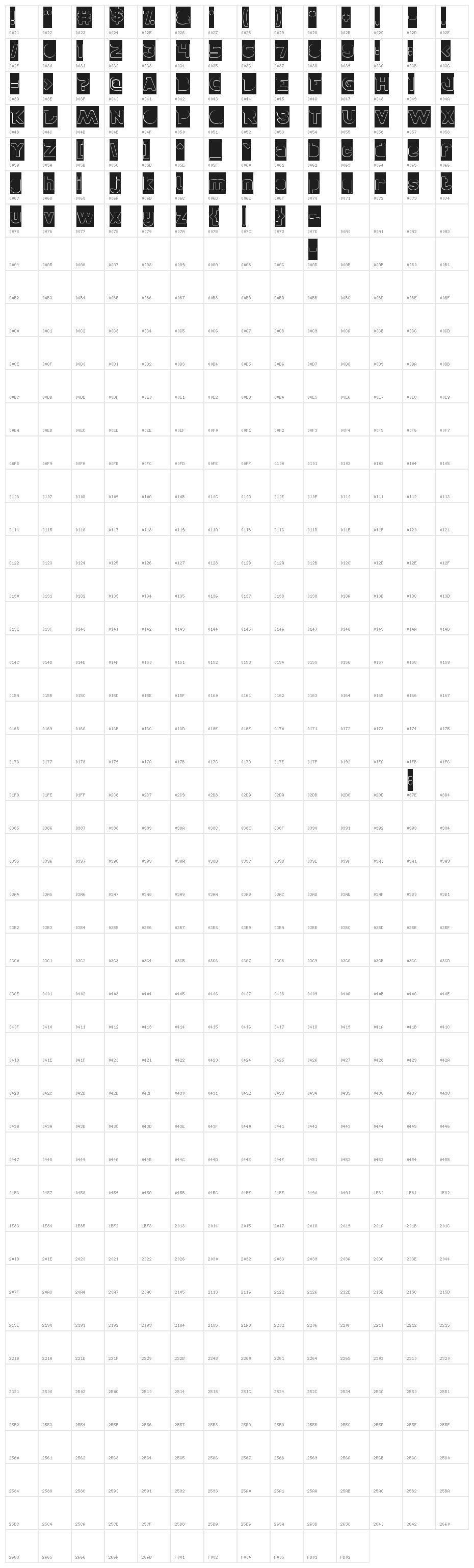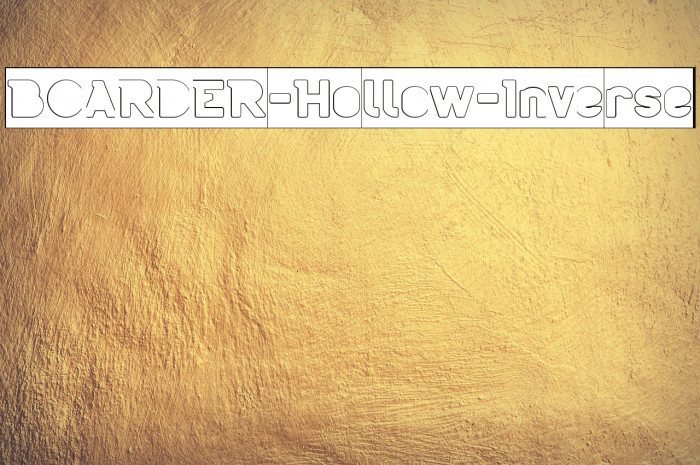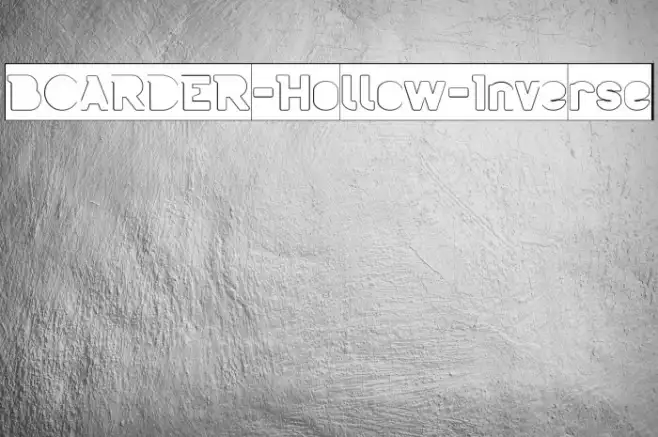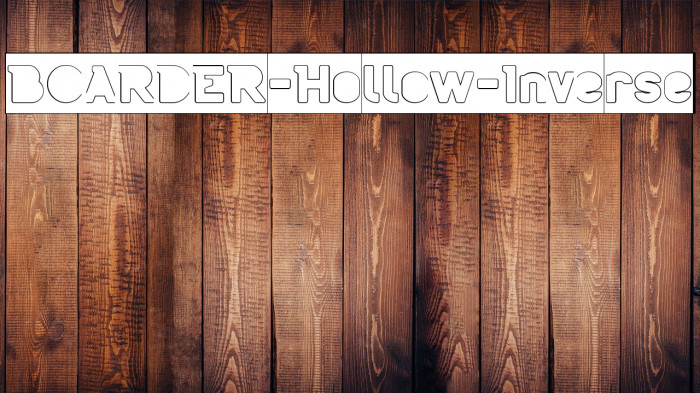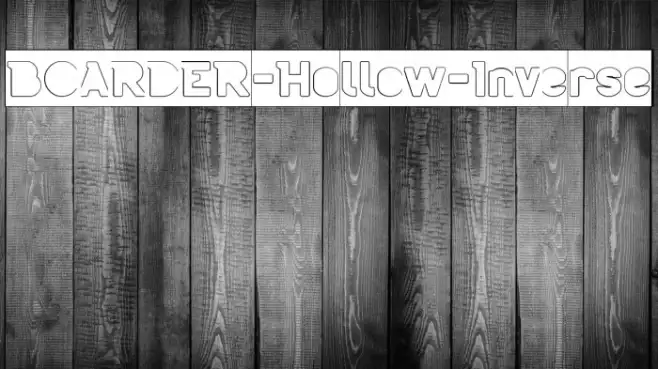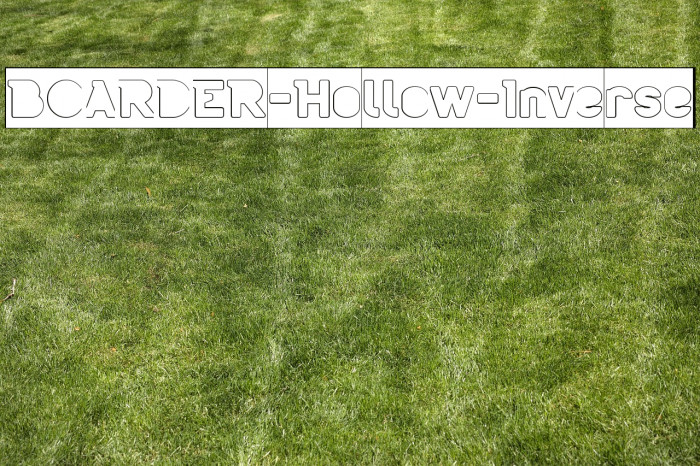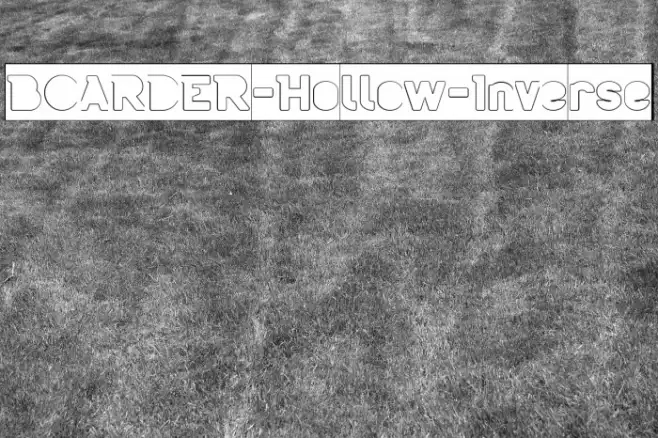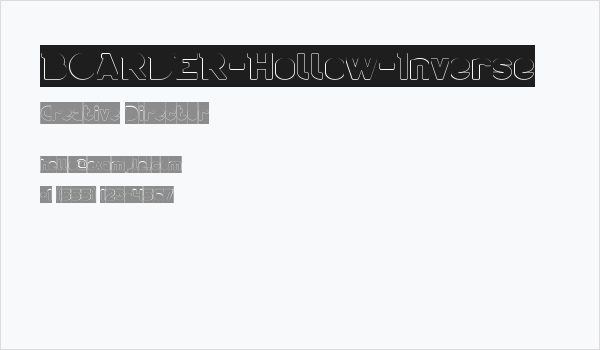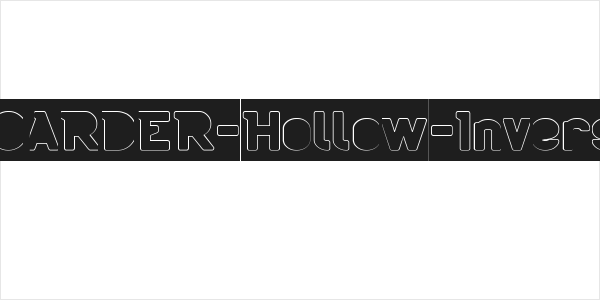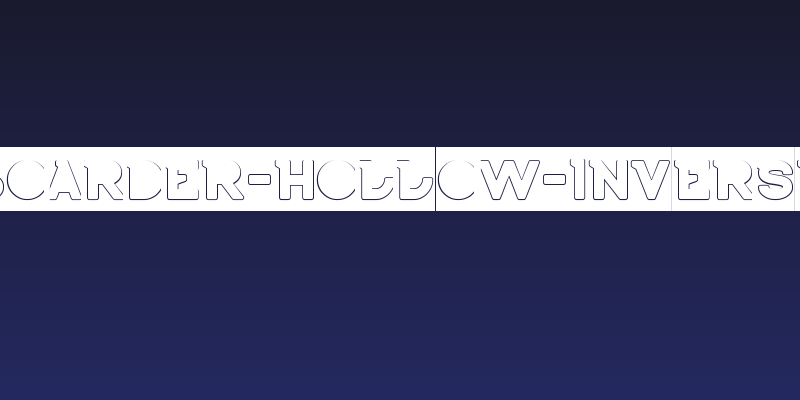
BOARDER-Hollow-Inverse Font
BOARDER-Hollow-Inverse Description
This font features a bold, hollow design with a modern and geometric aesthetic. The characters are outlined with a consistent stroke width, creating a striking and eye-catching appearance. The uppercase and lowercase letters maintain a uniform style, with rounded edges and a clean, structured form. The numerals and special characters follow the same design principles, ensuring a cohesive look across all elements. This font's hollow nature allows for creative use of background colors or textures to fill the interior spaces, enhancing its visual impact.
| Proposed Projects | Ideal for posters, logos, and headlines where a bold statement is needed. |